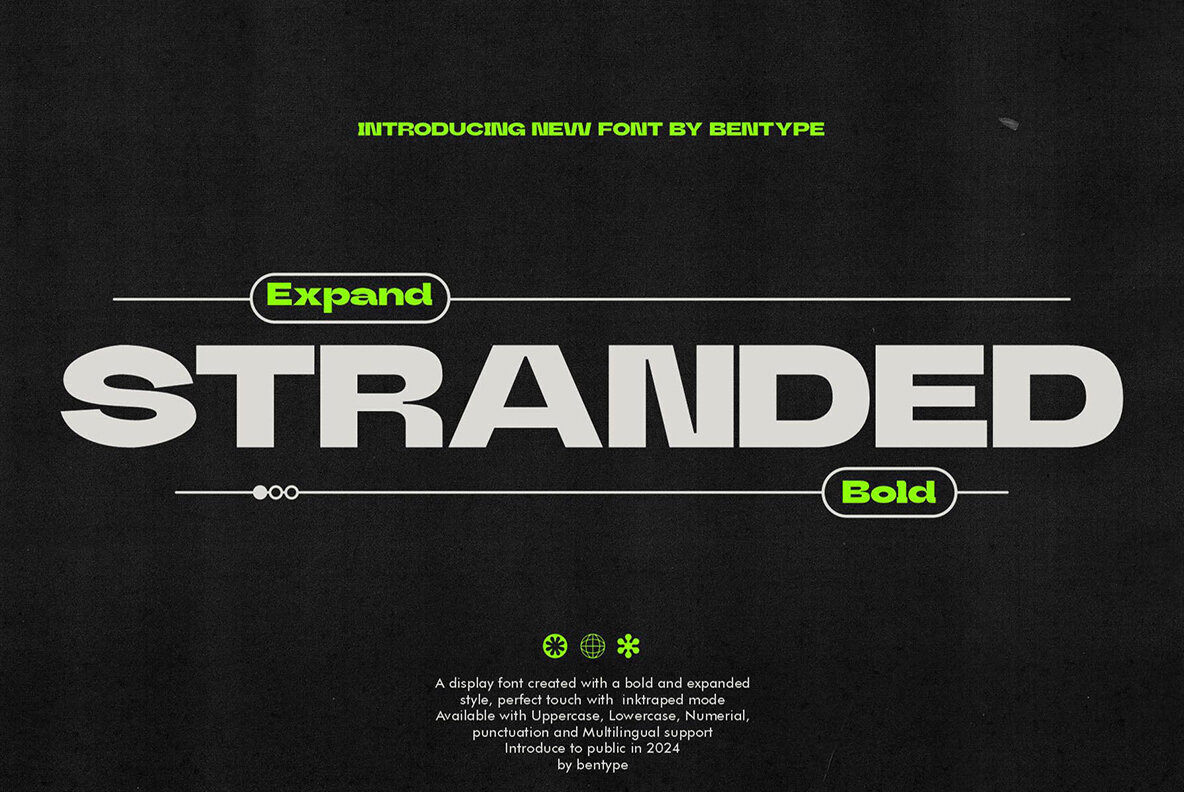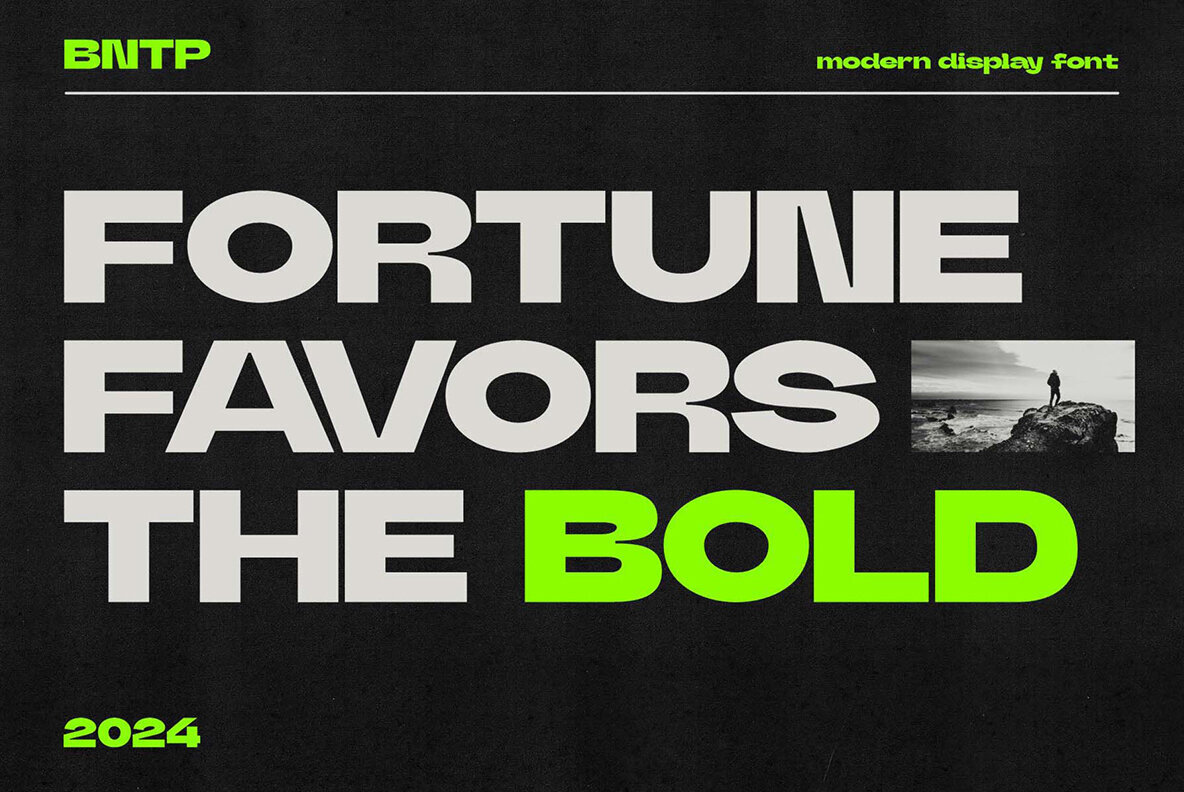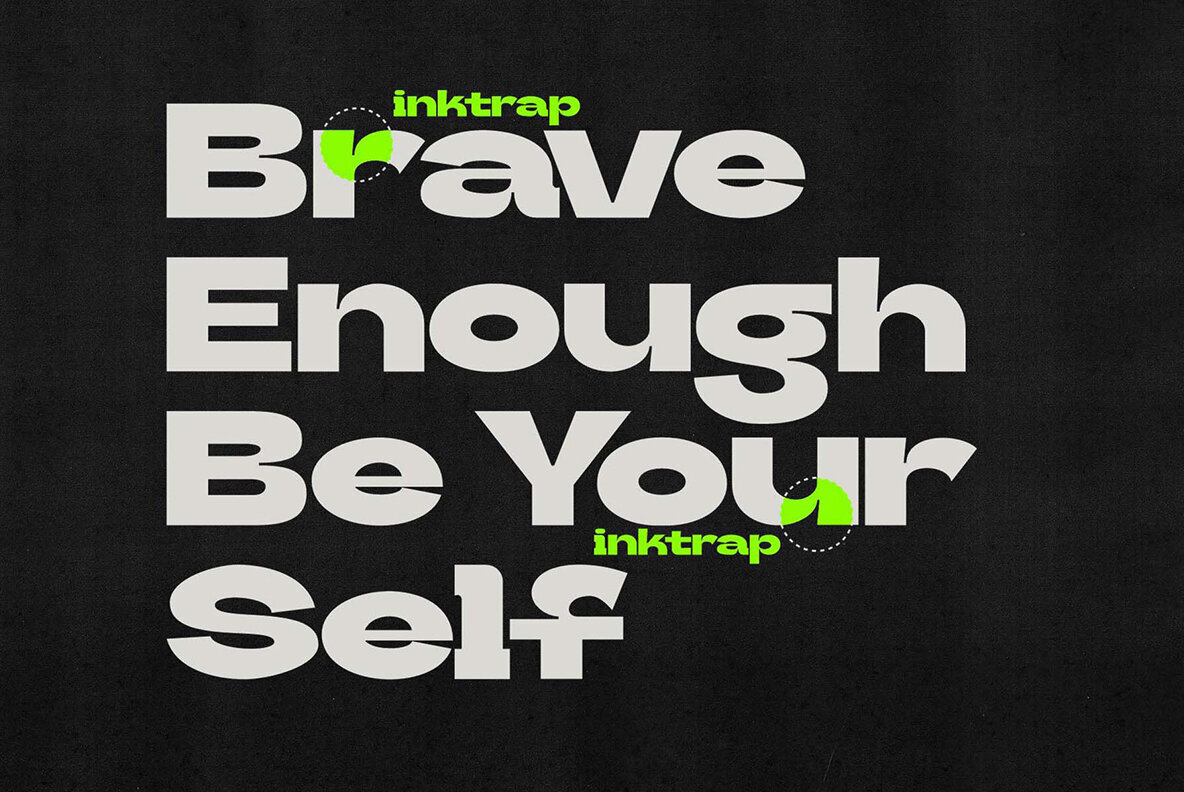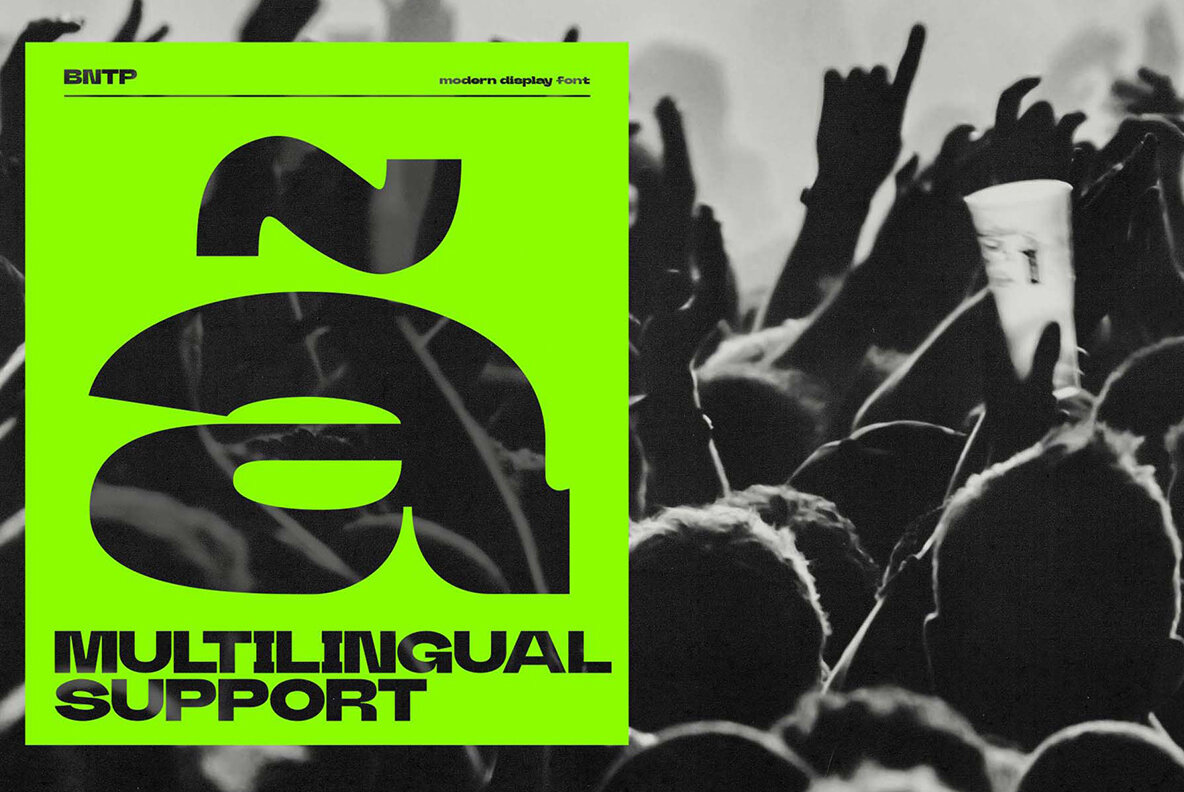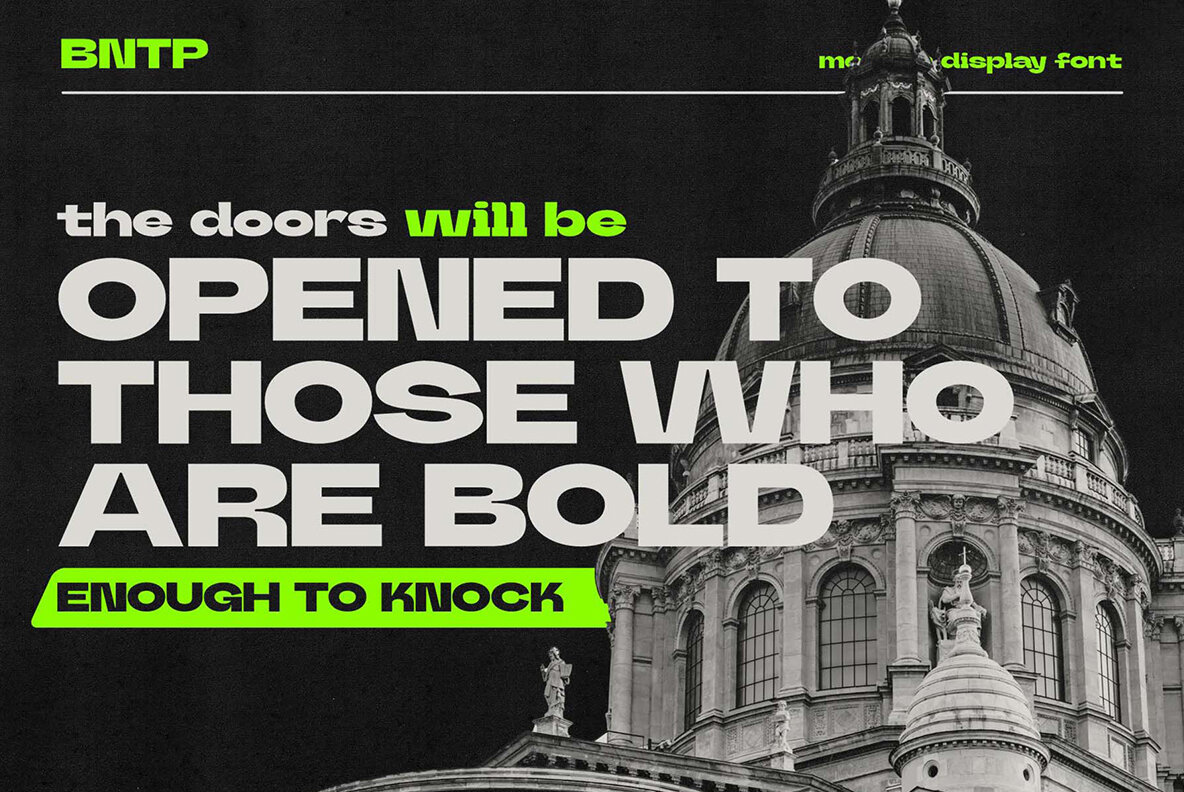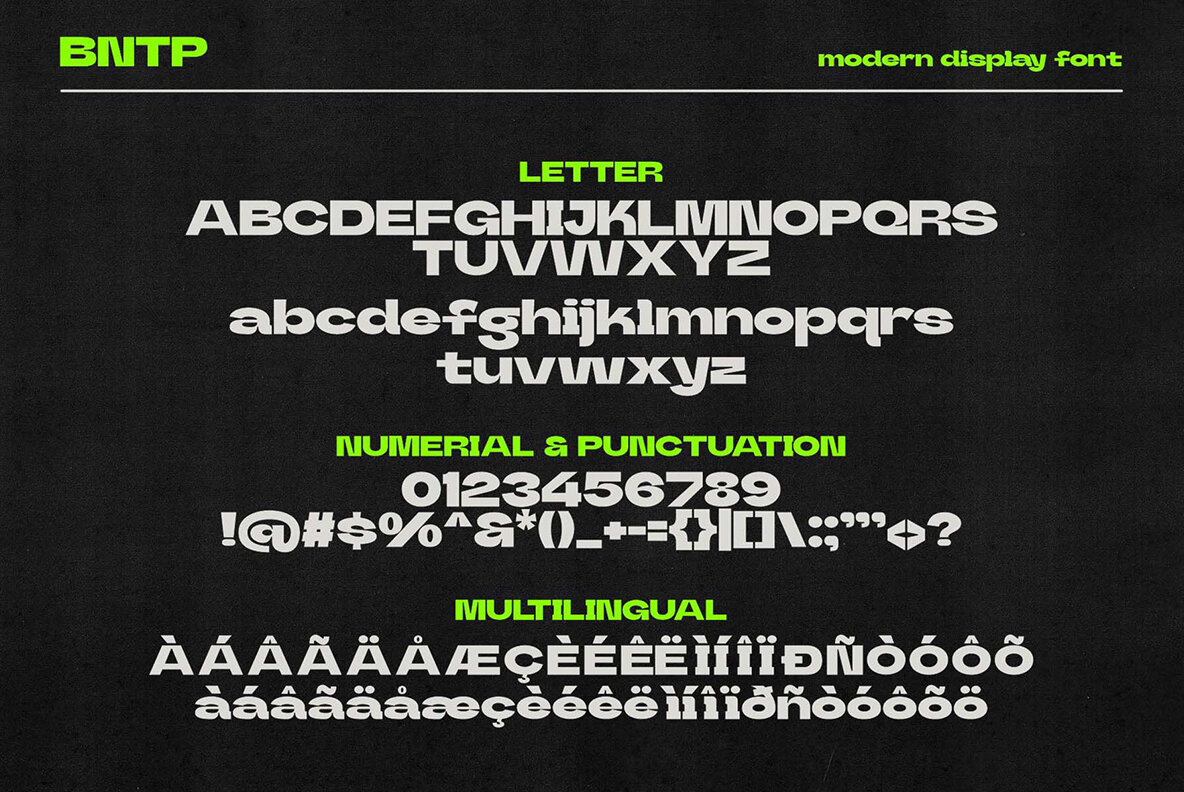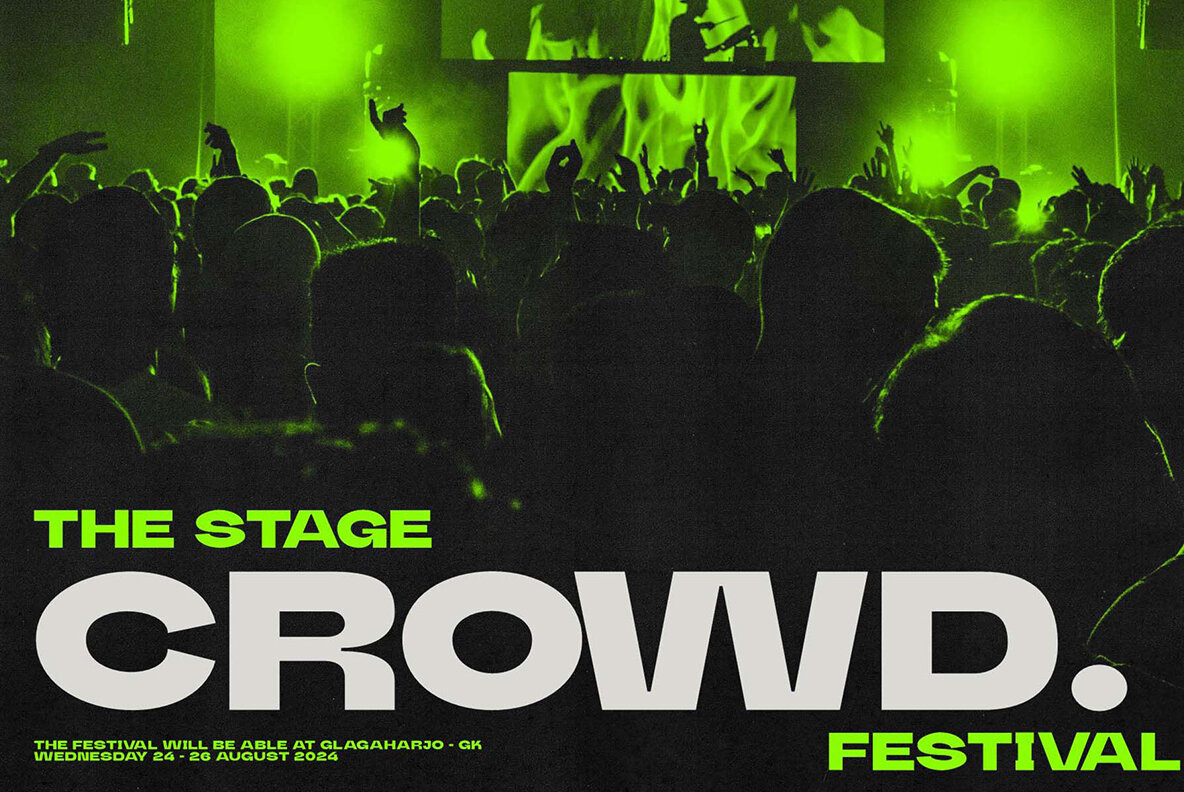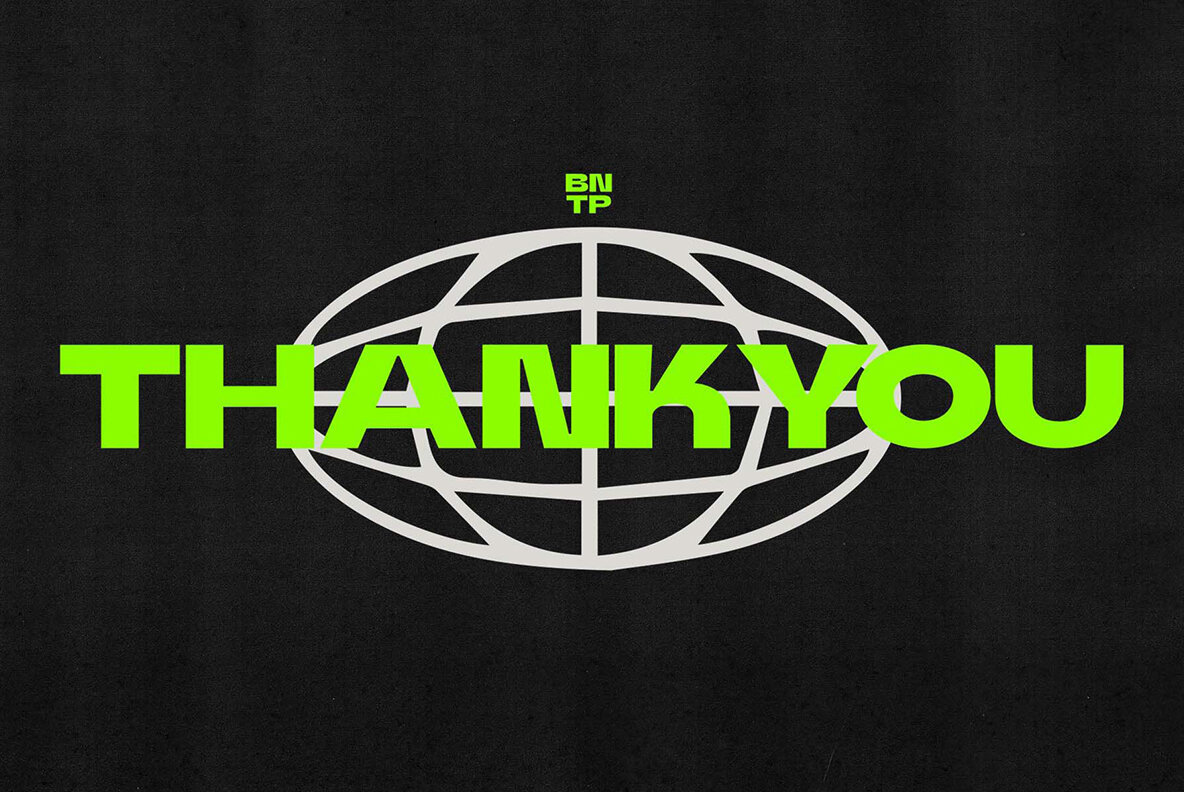
Stranded Font
Stranded
Stranded is an expanded display font characterized by its exceptionally thick and heavy letterforms. This font stands out due to its striking presence, making it ideal for headlines and designs where attention is paramount. Its extra-bold style surpasses regular or semi-bold versions, ensuring maximum emphasis in any application, from posters to event designs. Features:Stranded: Bold Font with Impact